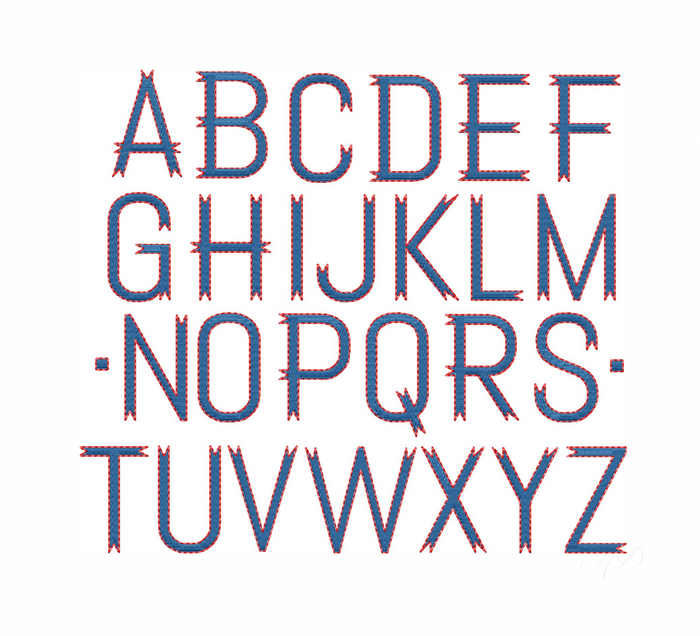
Wyeth Trail Monogram Embroidery Font Large
Enhance your crafting projects with the Wyeth Trail Monogram Embroidery Font. This fill stitch font features contrasting outline stitches on each letter, providing a stylish two-color option for all your embroidery needs. With uppercase letters A-Z and dots for punctuation, this font is versatile and easy to use.